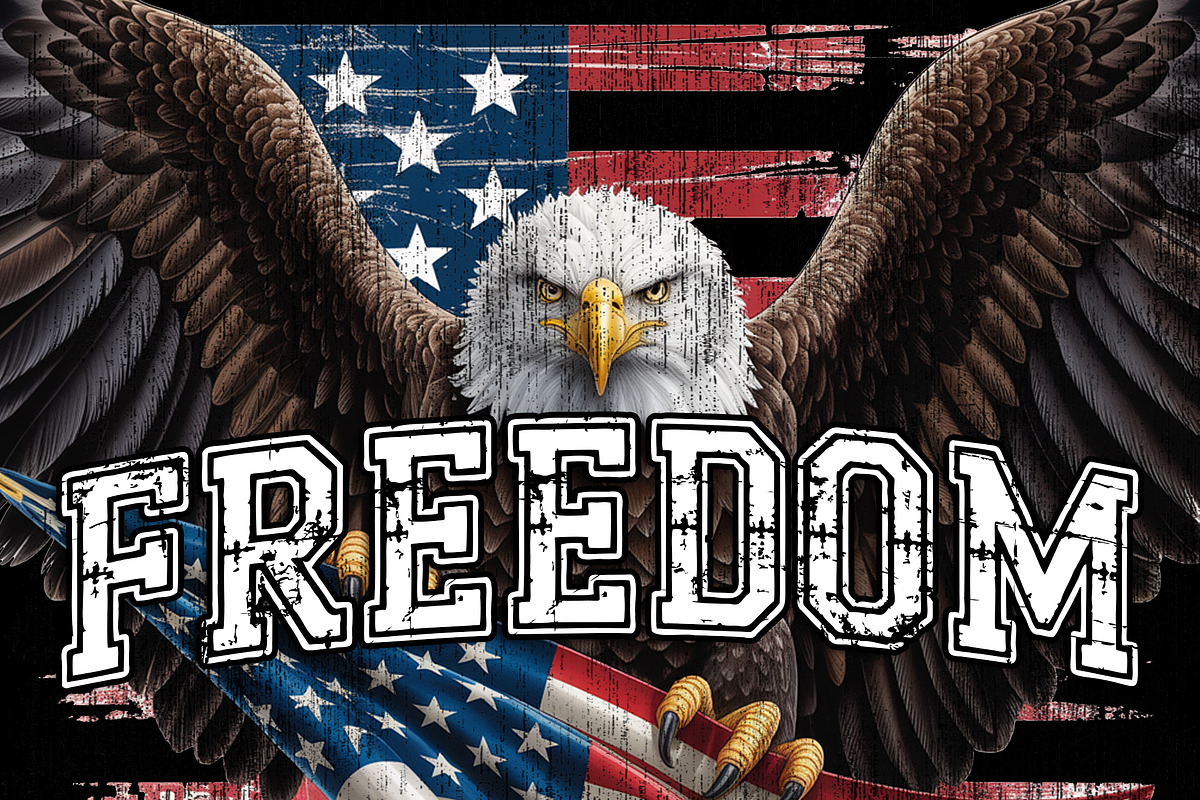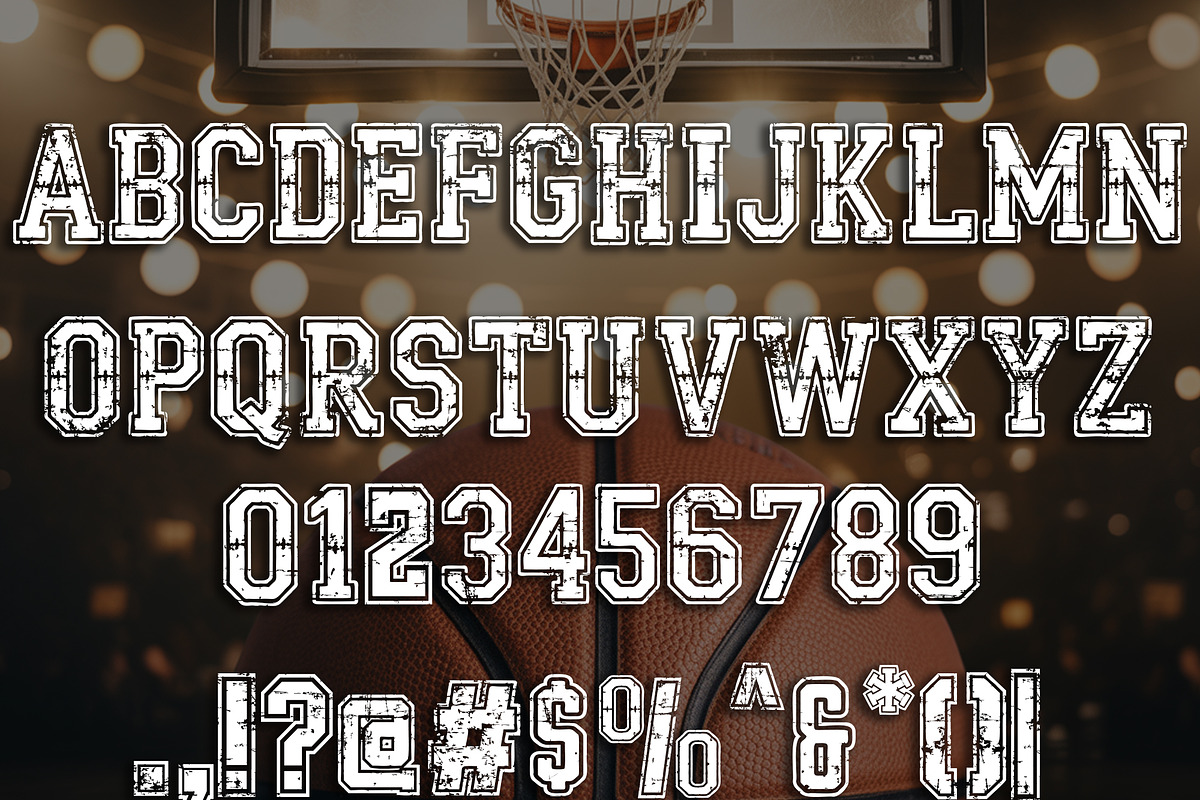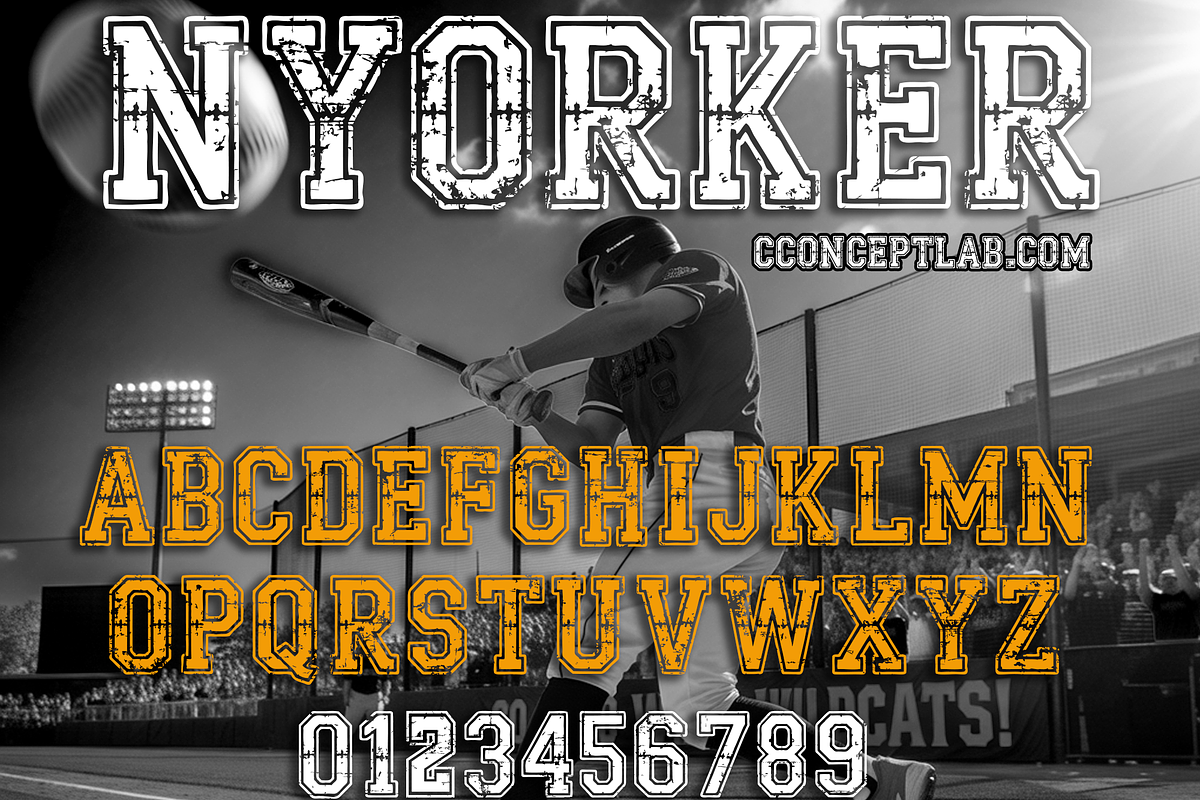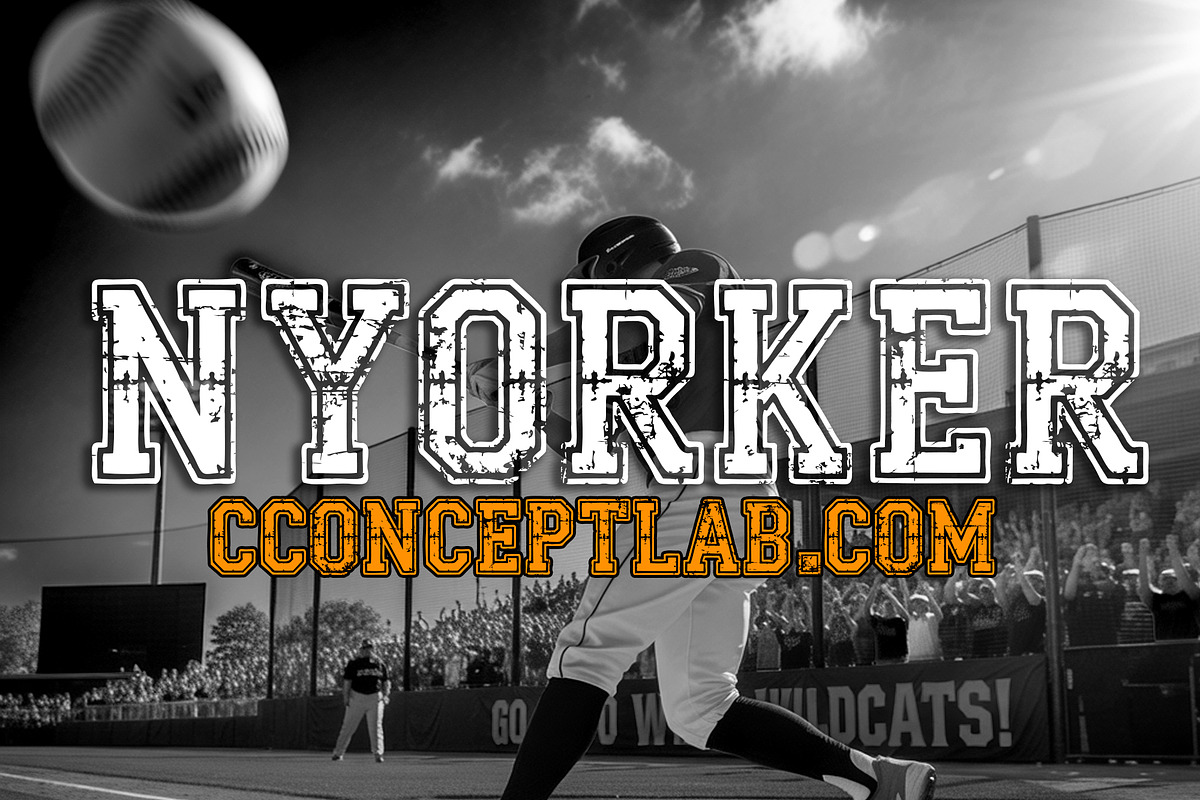
NYORKER
Introducing
NYORKER
- Distressed college inspired font perfect on your school projects, covers, etc.
- Destroy theme font for sports, university events and varsity use.
- Available in Uppercase, Numbers, Punctuations and Symbols.